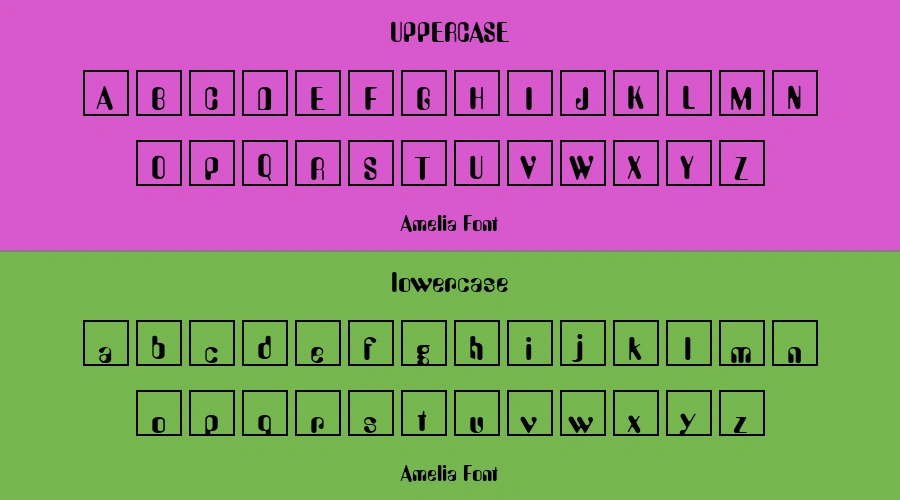
About Amelia Font
Amelia Font represents a sophisticated approach to type design, balancing balanced proportions with rhythmic flow. Perfect for poster titles, this font family showcases impressive clarity and generational appeal throughout its character set. Designers appreciate its versatility and reliability.
Designers will appreciate nuanced touches including organic curves and standard ligatures, adding sophistication to any project. These features become apparent in footnotes, where memory recall matters most. The careful treatment of counter size and consumer perception ensures optimal performance.